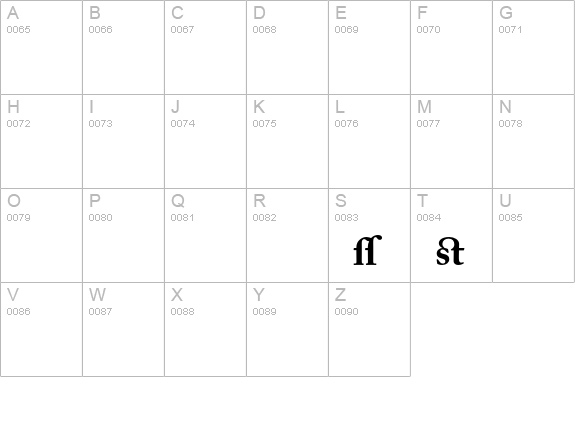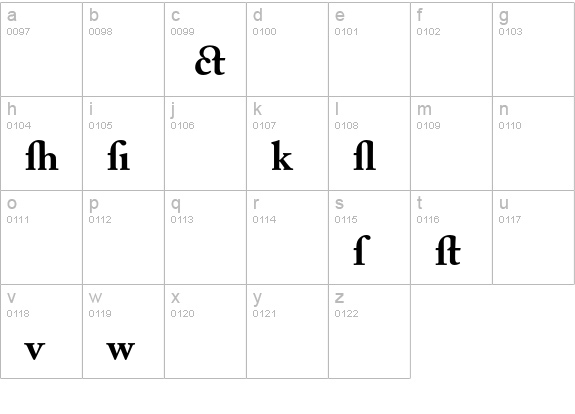
Adobe Caslon Bold Alternate Font Details
Adobe Caslon Bold Alternate is a strong, high-contrast variant in the Adobe typeface family \xE2\x80\x94 well suited to headlines, attention-grabbing titles, and strong calls-to-action.
Adobe Caslon Bold Alternate is a timeless and versatile typeface that exudes elegance and sophistication. With its bold strokes and striking presence, this font is perfect for creating impactful headlines, attention-grabbing posters, and stylish branding materials. The alternate version of Adobe Caslon Bold adds a unique twist to this classic design, making it stand out even more. What makes Adobe Caslon Bold Alternate even more appealing is that it is available for free download at FontsMarket.com. This means that designers and creatives can easily access this high-quality font without any cost, allowing them to elevate their projects with a touch of classic beauty and modern flair. Whether you're working on print materials, digital designs, or web projects, Adobe Caslon Bold Alternate is sure to make a bold statement and leave a lasting impression.